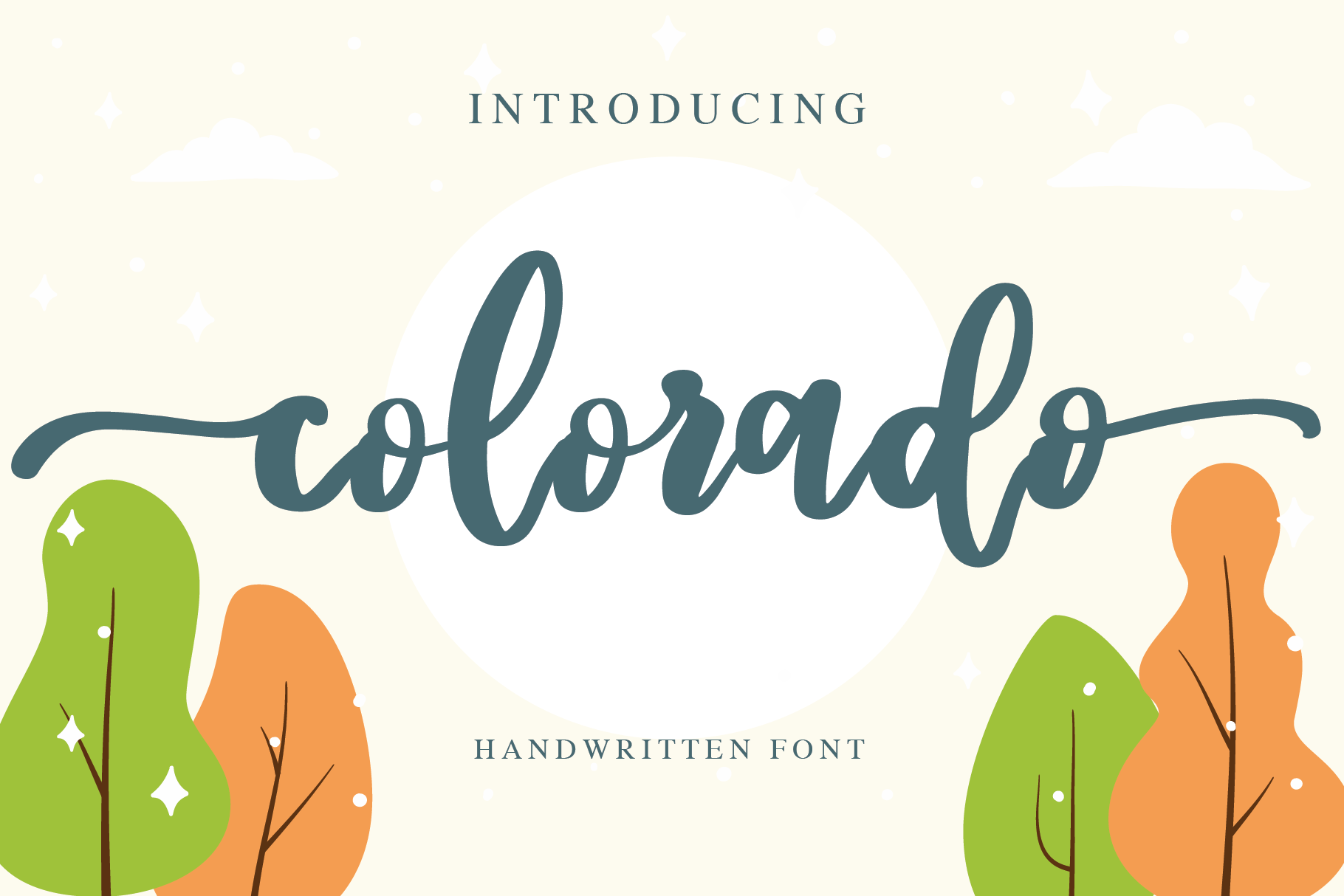
colorado is a handwritten font, this font is great for your next creative projects such as social media post, instagrm post, watermark on photography, quotes, album cover, shirt designs, websites, branding, children's designs, blogs, logos, invitations and more!
colorado comes with uppercase letters, lowercase letters, numbers, punctuation and ligature